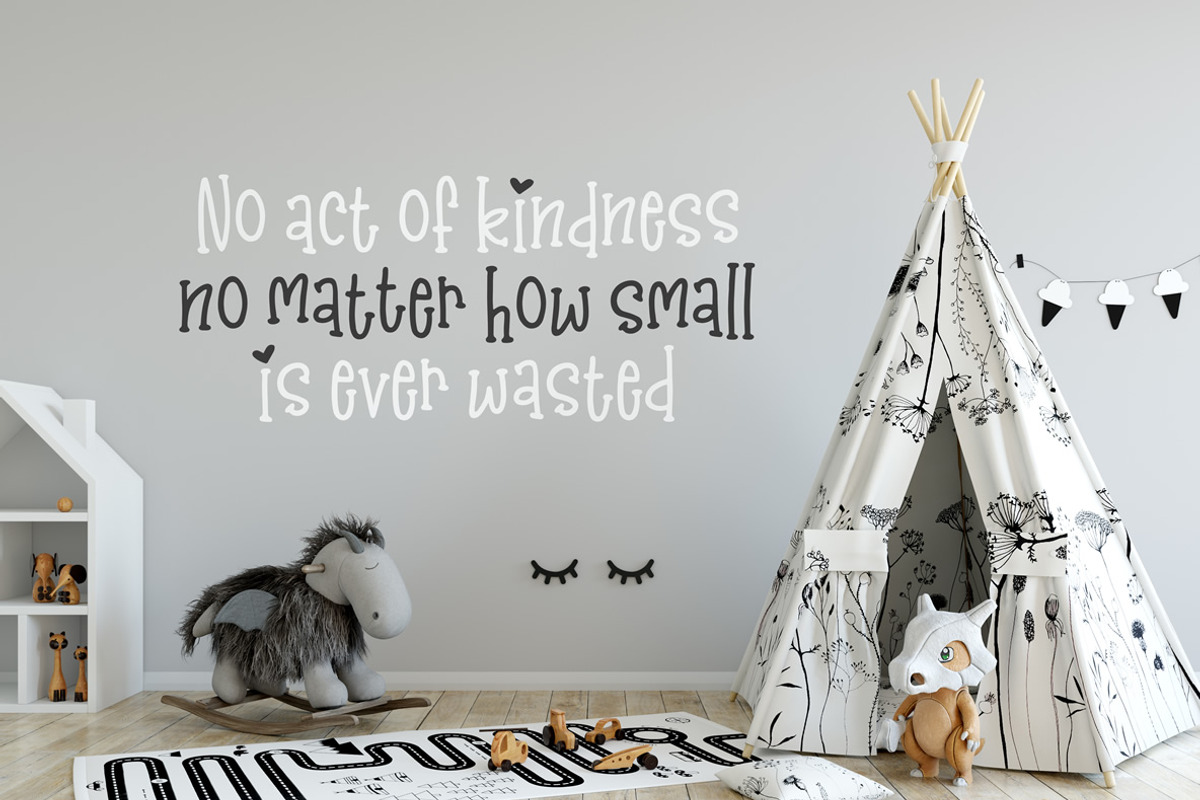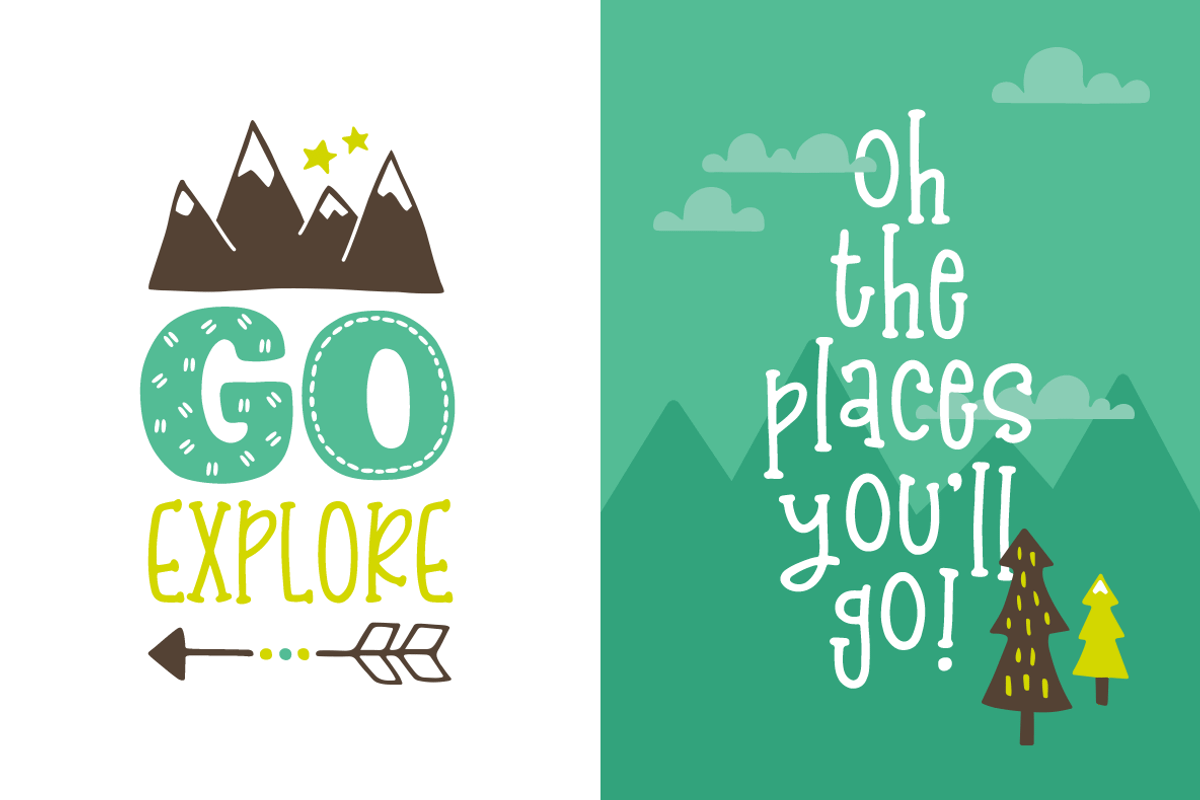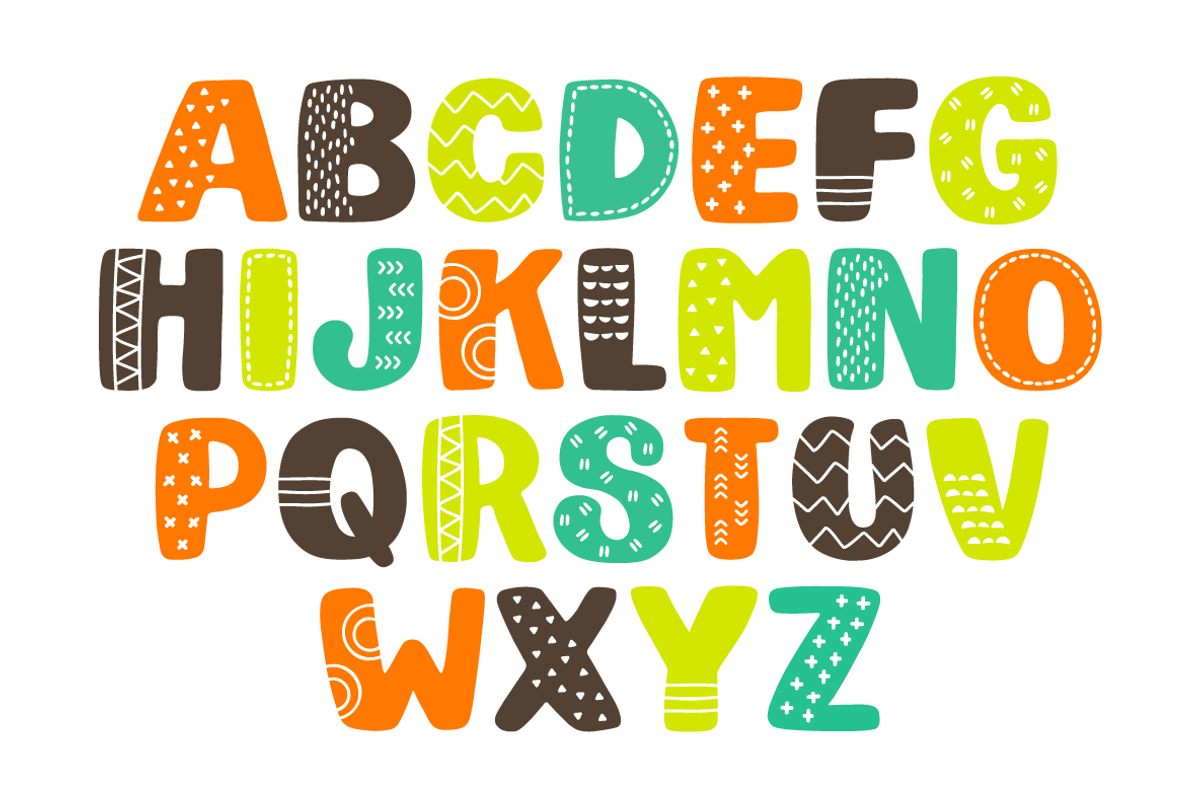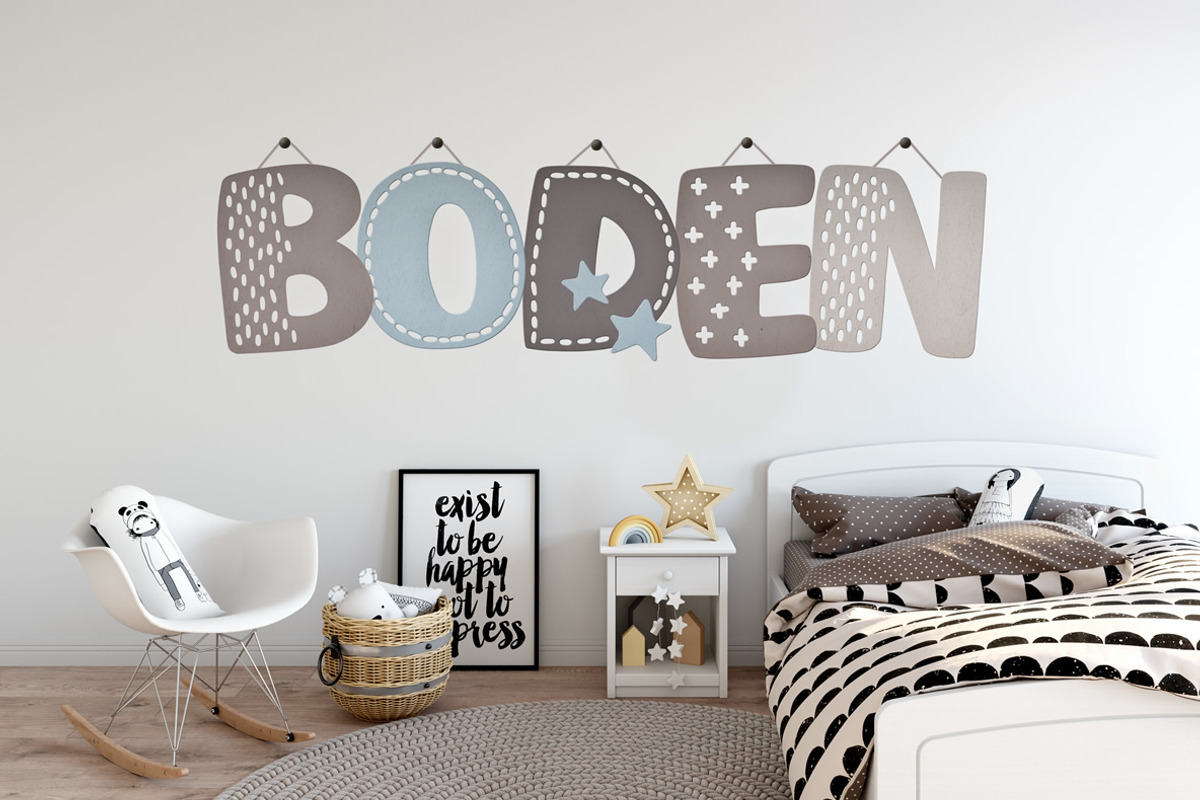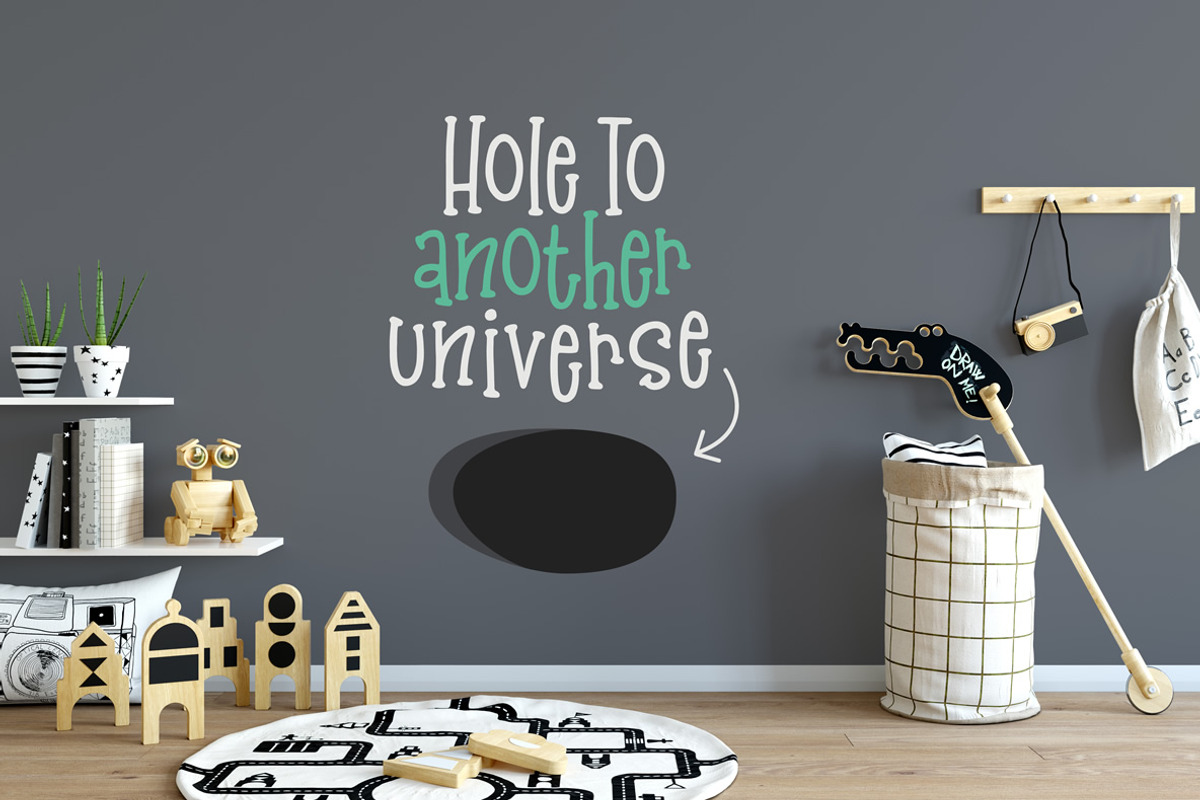
Kristof Font Duo + Doodles!
Say hello to Kristof! An adorable duo that combines a thin, bouncy font with bold, patterned letters. Also included are a set of super fun doodles in .ai .png .psd and .pdf format as well as otf and ttf font files.